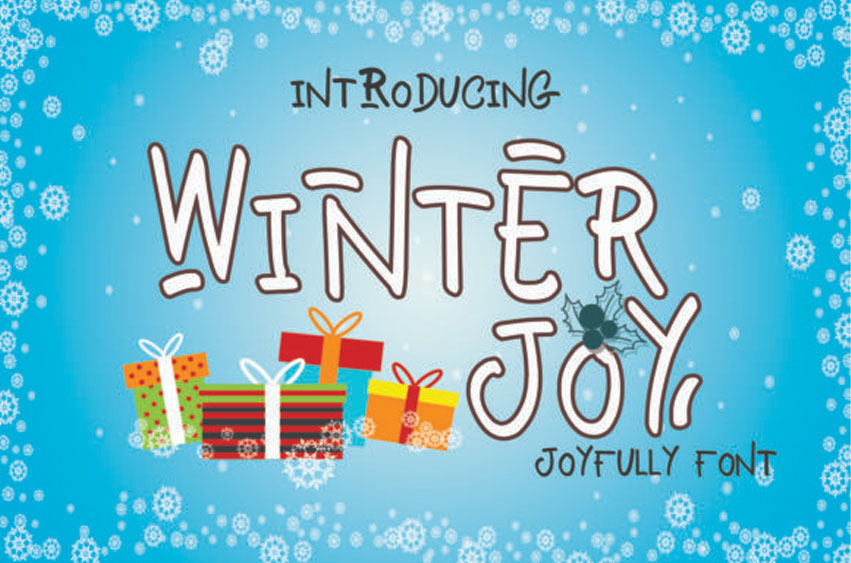
Winter Joy Font
Winter Joy Font is a cute, handwritten holiday-season font. It’s a great choice for quotes, headings, logos, printings, social media posts and more!
All letters are in uppercase, set your writing to lowercase for another lovely style. You can also get fun, hand drawn doodles by typing 0-9. It doesn’t need any special software!